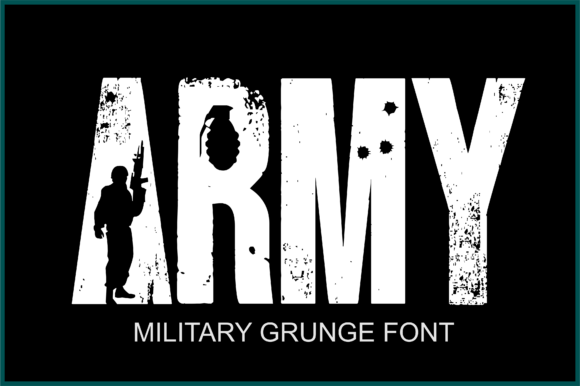
The Perfect Distressed Design: Unleashing the Power of Army Font
Have you ever stared at a blank canvas, trying to conjure up the perfect design to capture the essence of your project? For designers, those moments of creative struggle are all too familiar. But what if you had a tool that could instantly transport your work to a world of rugged, gritty charm? Enter the Army Font, a Military Grunge Font that’s about to become your new go-to companion.
With its bold, distressed texture and military-inspired design, Army Font is the ultimate solution for creating impactful logos, posters, and apparel that exude an authentic, rugged aesthetic. Whether you’re working on a military-themed project or simply want to add some grit to your design, this versatile font has got you covered. Available in multiple formats, Army Font is the perfect addition to any designer’s toolkit.
Key Features of Army Font
- Font Family: Army Font is a sans-serif font, designed to mimic the style of military typography.
- Unique Characteristics: Features a bold and rugged design, with distinctive letterforms and a strong x-height, making it easily readable in various environments.
Designer Review: Army Font
Army Font is an edgy and modern sans-serif font that makes a statement. ✨ Here are some things that work well:
- Unique aesthetic: Army Font has a distinctive look that sets it apart from other fonts. It’s perfect for brands that want to stand out.
- High legibility: Despite its bold appearance, Army Font is highly legible even at smaller sizes.
- Wide compatibility: Army Font supports multiple languages and is compatible with most operating systems.
- Overuse: Army Font’s edgy look can be overwhelming if used too extensively. It’s best to use it sparingly to avoid visual fatigue.
- Not suitable for all contexts: Army Font is not ideal for formal or professional settings. It’s better suited for bold, attention-grabbing designs.
- Font weight limitations: While Army Font has a range of weights, it’s not as extensive as some other fonts. This may limit its versatility.
Overall, Army Font is a great choice for designers who want to add a touch of edginess to their projects. While it’s not perfect, its unique aesthetic and high legibility make it a valuable addition to any design toolkit.
The Army Font is commonly used for military and patriotic designs. Tips for getting the most out of it include using it in conjunction with other bold fonts to create a sense of hierarchy, and using it for titles and headings to add emphasis.